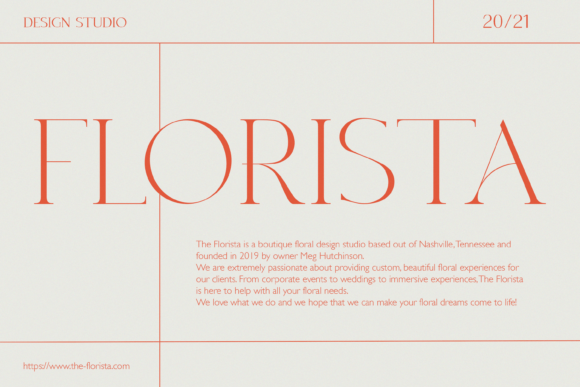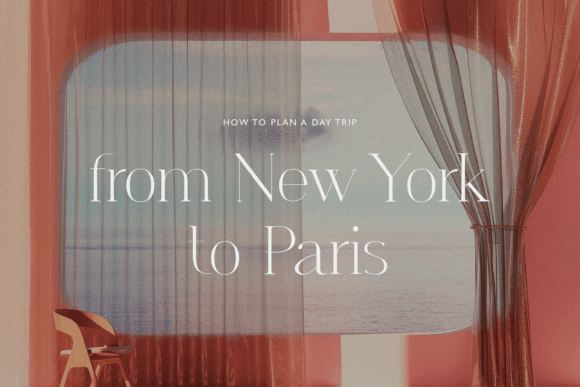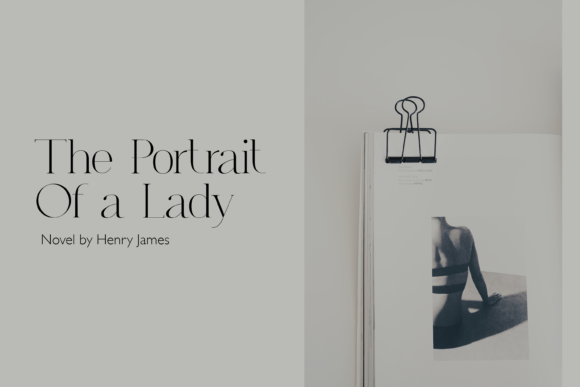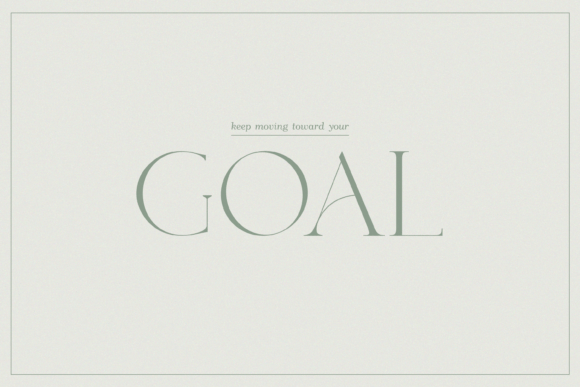
Afterglow Font
AfterGlow is a stylish and timeless font that effortlessly blends elegance with a touch of fashion-forward flair. Perfect for invitations, logos, or any branding project, this classic font adds a refined and sophisticated touch to your designs. Elevate your creative projects with Afterglow’s versatile charm, making it an ideal choice for those seeking a tasteful and enduring aesthetic.